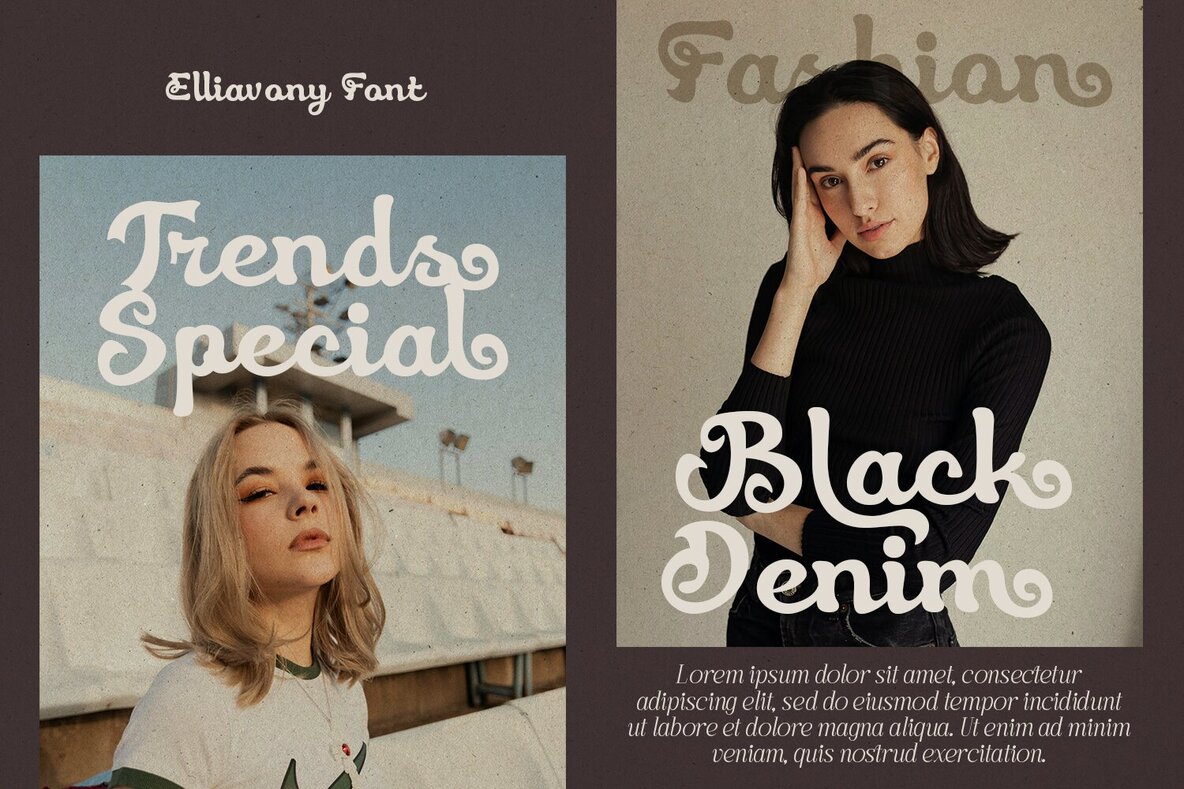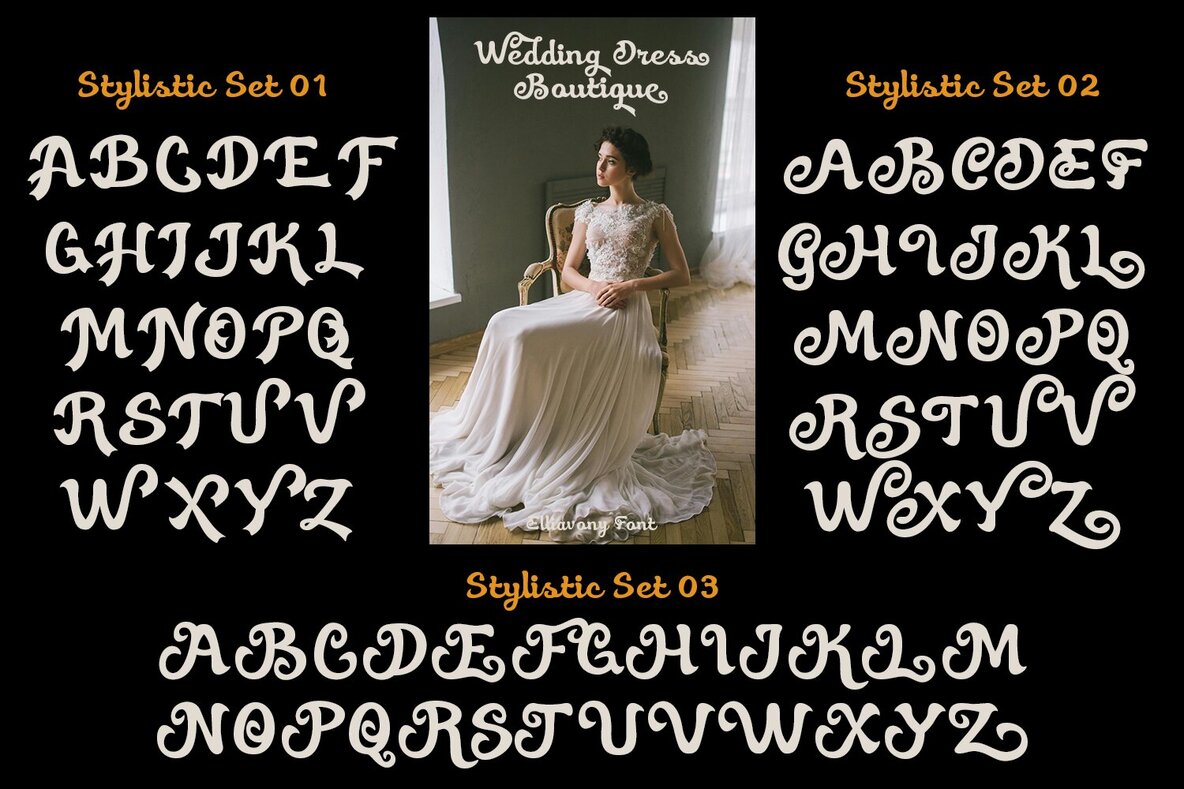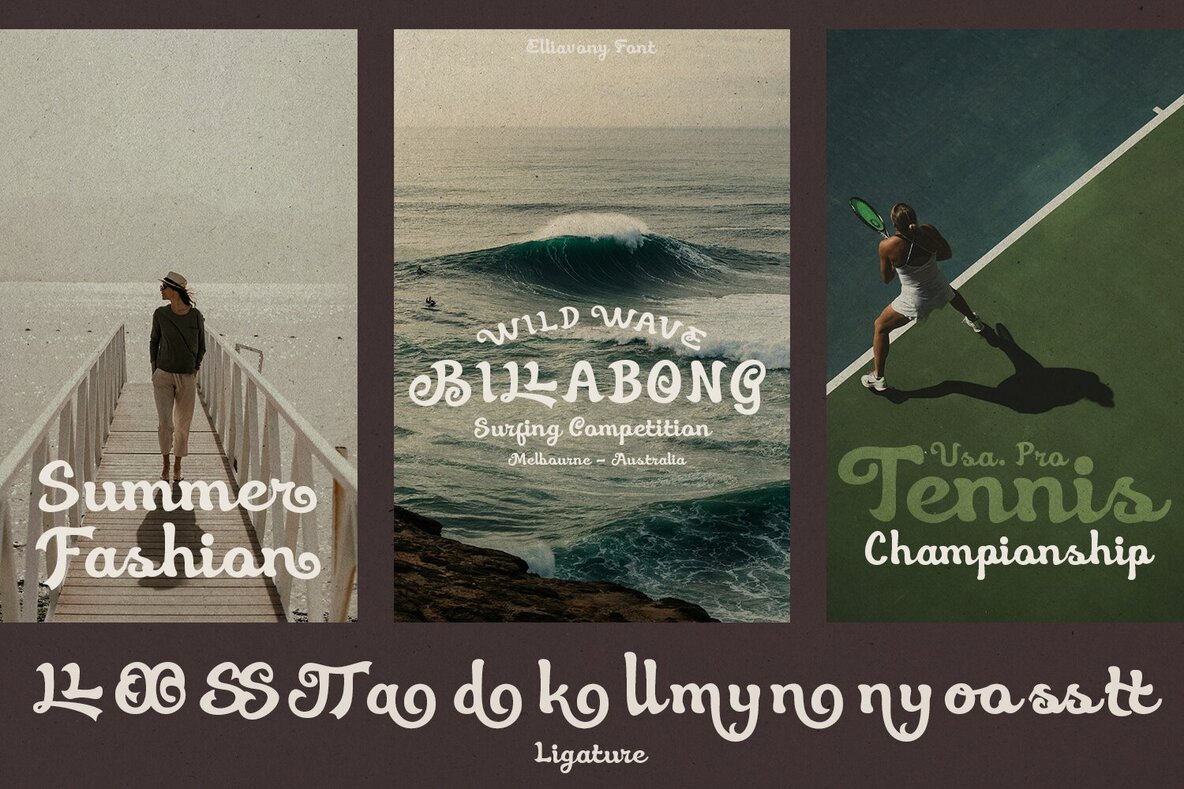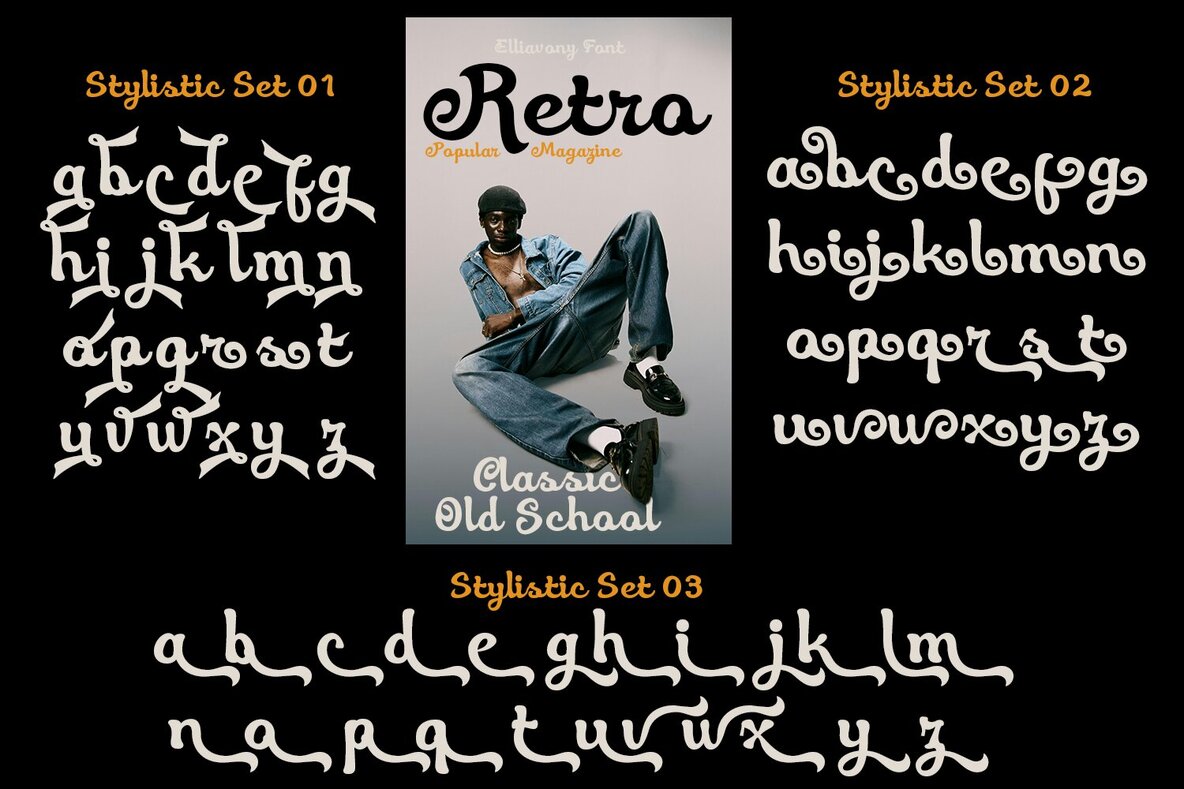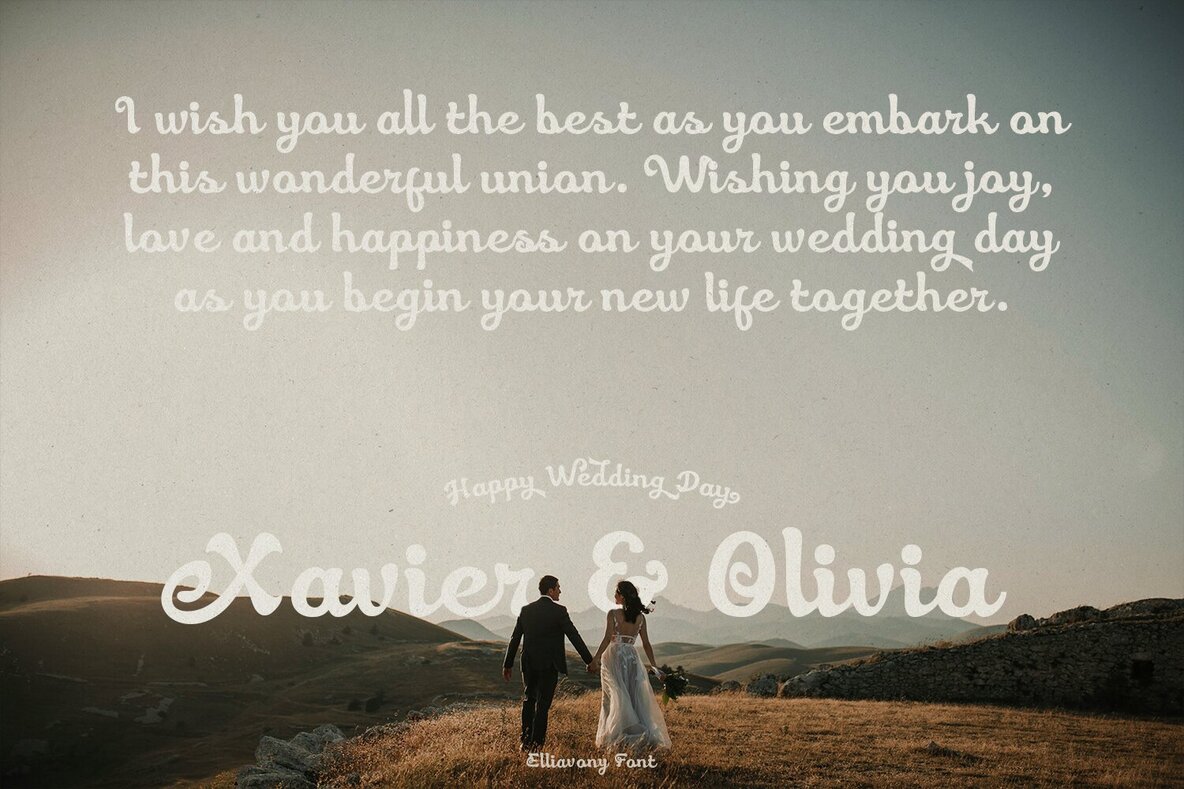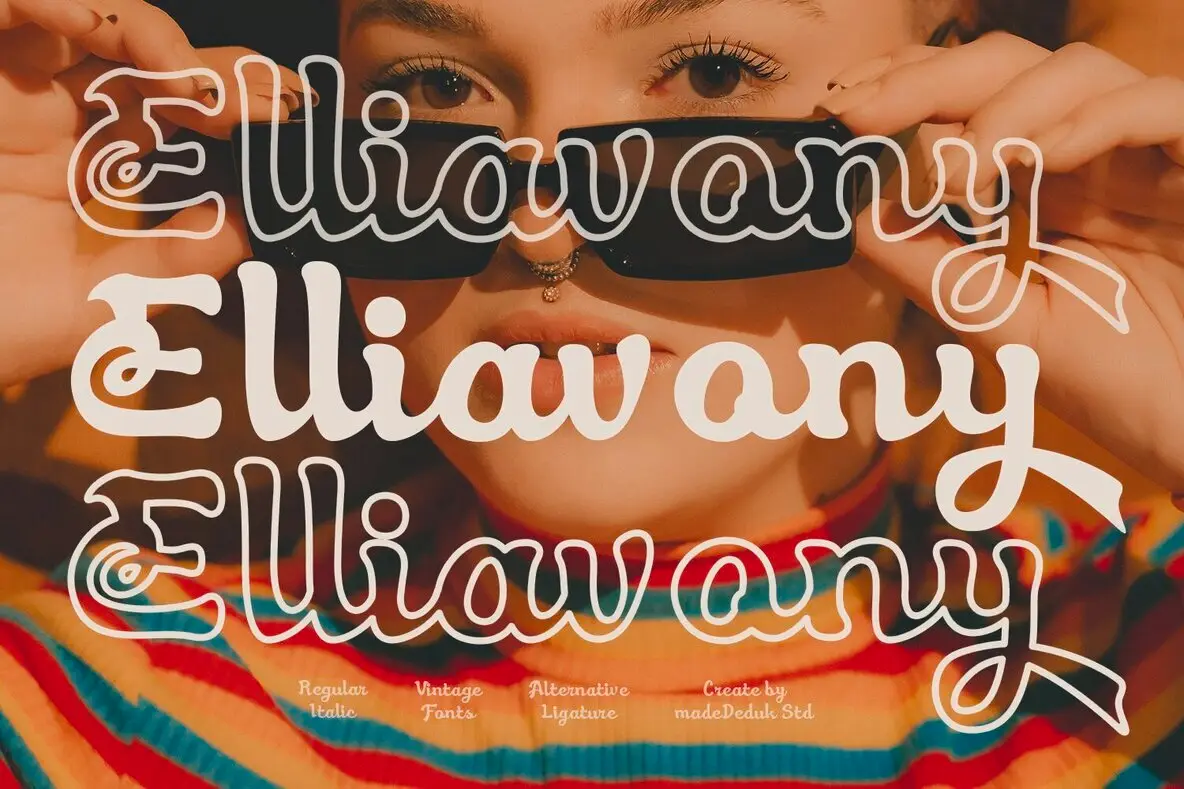
Eliavony Font
Introducing Eliavony, a retro script font inspired by the distinct style of the 70s. This bold and readable typeface is crafted with meticulous attention to detail, ensuring each glyph is beautifully designed. Whether you're working on branding projects, product packaging, or eye-catching invitations, Eliavony provides a lively rhythm for comfortable reading and perfect visual harmony.Eliavony: Capturing the 70's Retro Elegance
Versatile Design Features